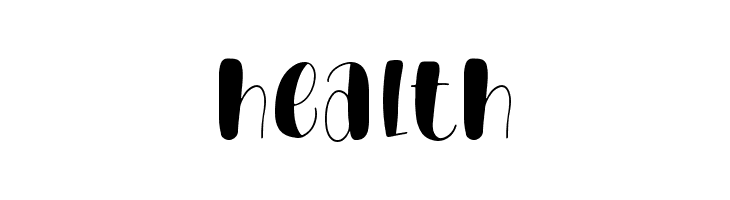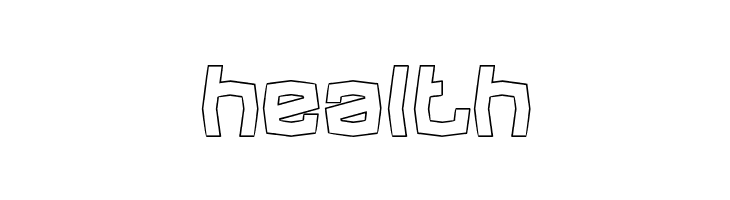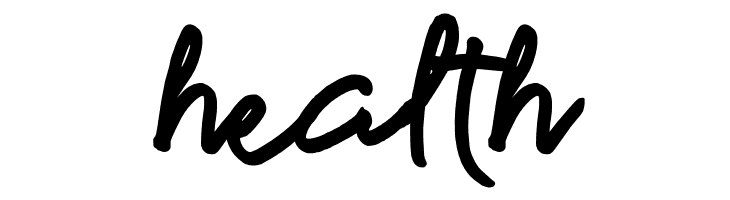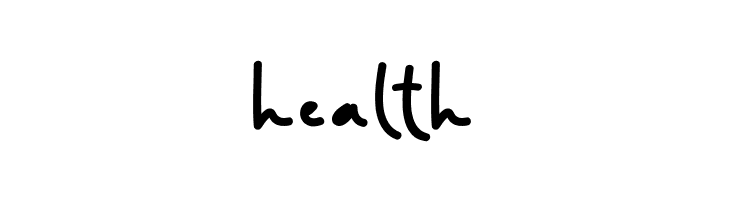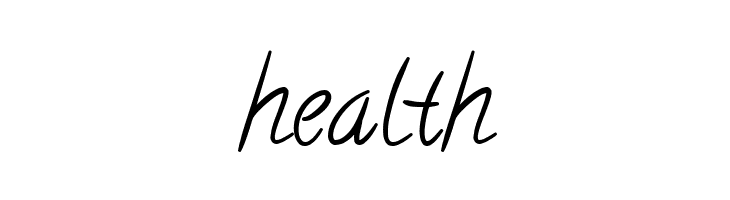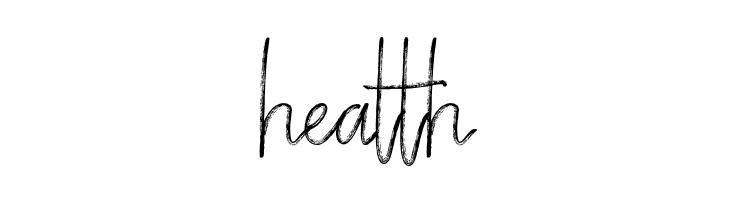
A bold, modern script font with a playful, handwritten style.
A bold, flowing script font with elegant, cursive letterforms.
A fluid and elegant script font with a modern calligraphic style.
A playful, hand-drawn outline font with an irregular and artistic style.
A bold, hand-drawn font with an expressive, graffiti-like style.
A bold, cursive handwritten font with a lively and dynamic style.
A playful, casual handwritten font with an organic flow.
A playful, informal handwritten font with dynamic and irregular strokes.
A dynamic, calligraphic font with a modern, artistic flair.
A hand-drawn, brushstroke font with an artistic and casual style.